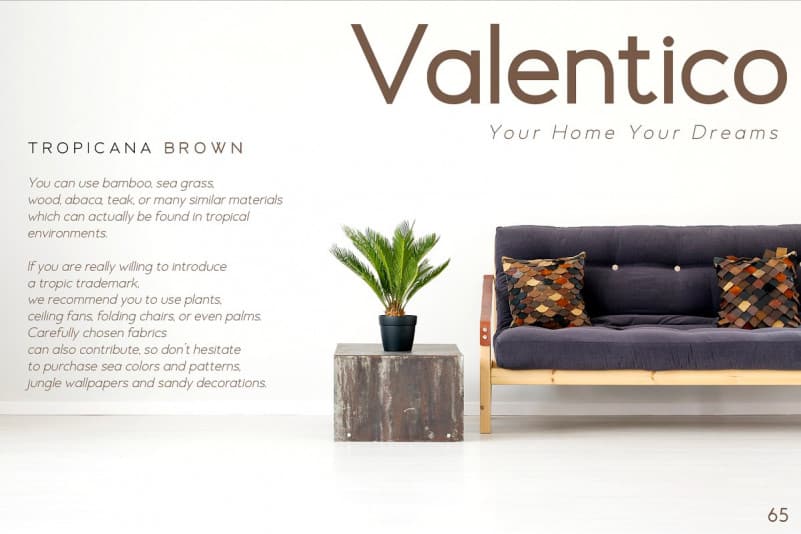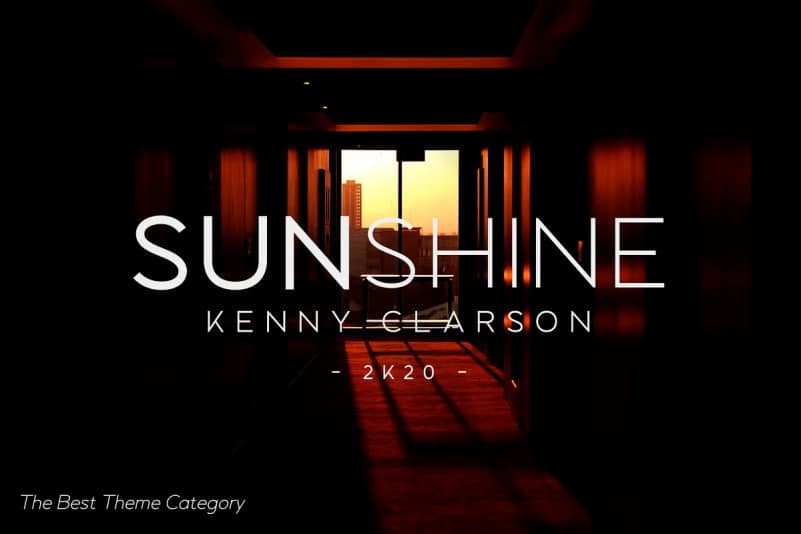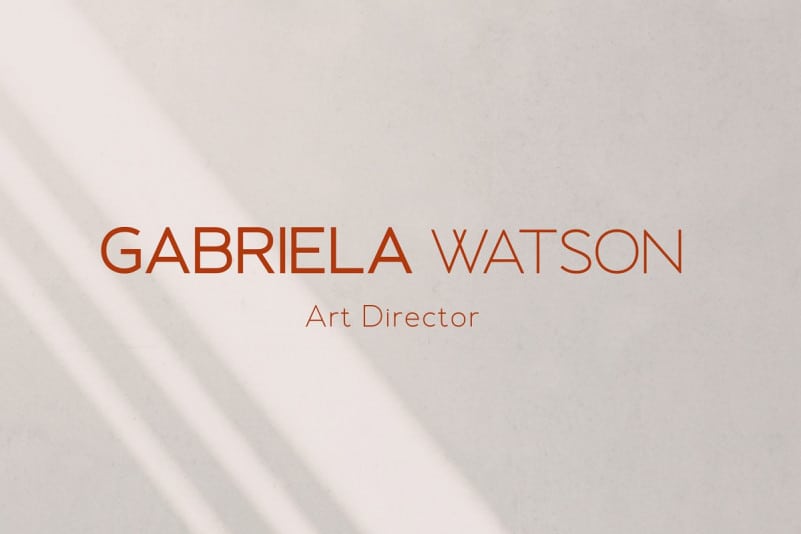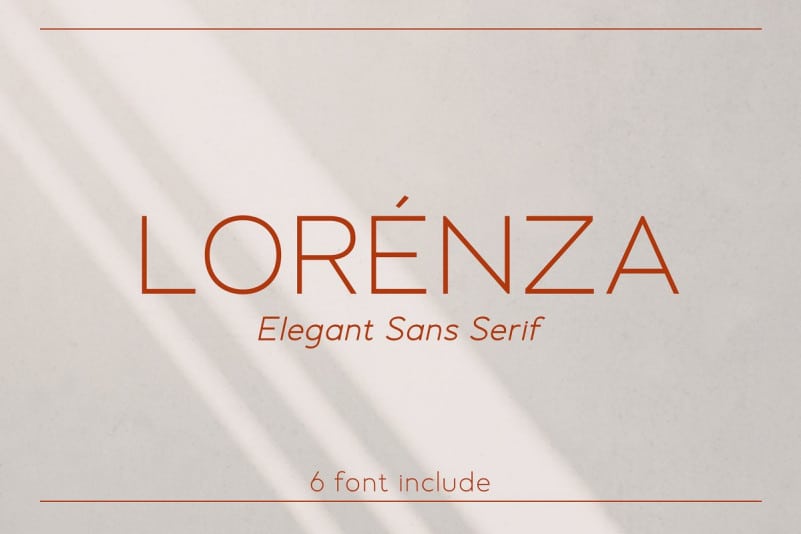
Lorenza – Sans Serif Font
Lorenza – Elegant Sans Serif Font
This is a modern and elegant sans serif. It’s a multi-weight, minimalist, all caps sans serif font that can be used for a wide range of projects such as logo designs, branding, editorials, wedding invitations, social media posts, and so much more! Lorenza Font is designed and shared by Almarkha Type. Inspired by the famous logo is simple but classy, made with precision and measured. very good for combining your design work with a clear line and a circle with several different weights that are very comfortable in the design area you are easy to read and as a title on a blog or magazine page
Lorenza – Sans Serif has symbols and punctuation and unique alternative letters perfect for logos & branding, photography, invitation, watermark, advertisements,product designs, stationery, wedding designs,label ,product packaging